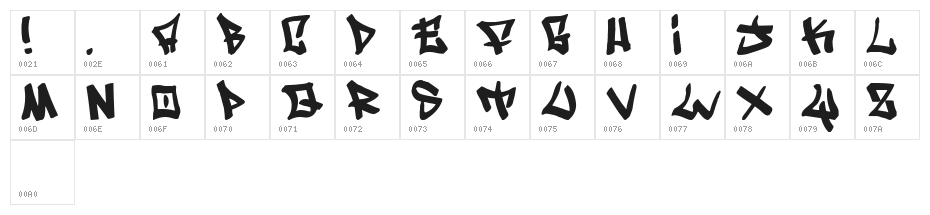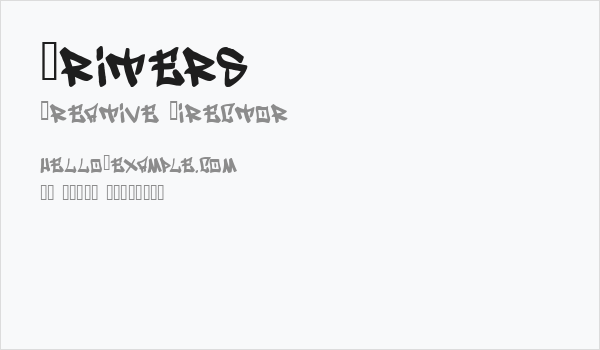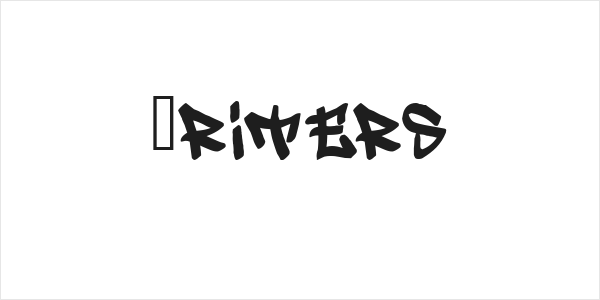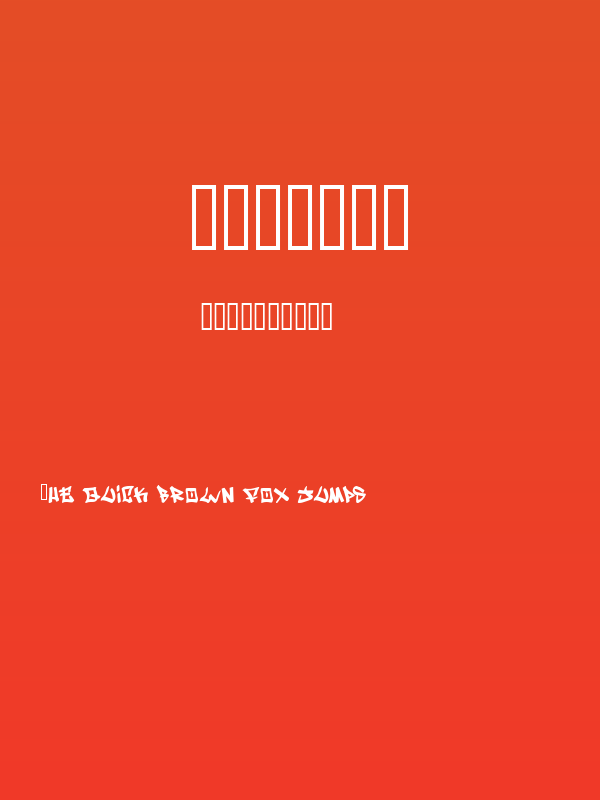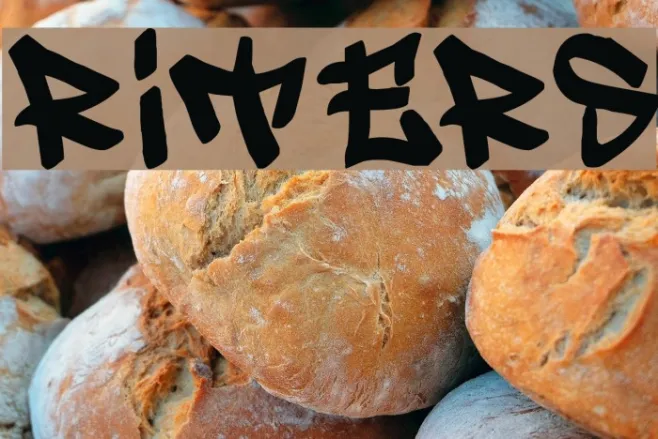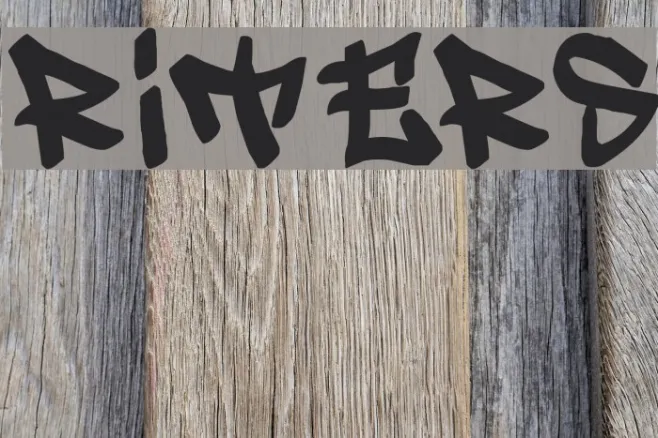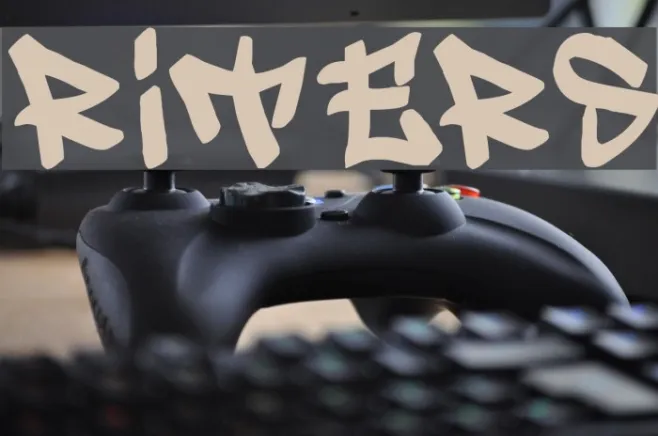
Writers Font
Writers Description
This font exhibits a bold and dynamic graffiti style, characterized by its sharp angles and irregular shapes. The uppercase letters are particularly striking, with a sense of movement and energy that suggests a street art influence. The lowercase letters maintain this edgy aesthetic, though they are slightly more subdued. The numbers and special characters are consistent with the overall theme, adding a playful yet rebellious touch. This font's unique style makes it ideal for projects that require a bold and unconventional look.
| Overall Style | Modern, Urban, Edgy |
| Proposed Projects | Perfect for street art designs, urban-themed posters, music album covers, and edgy branding projects. |